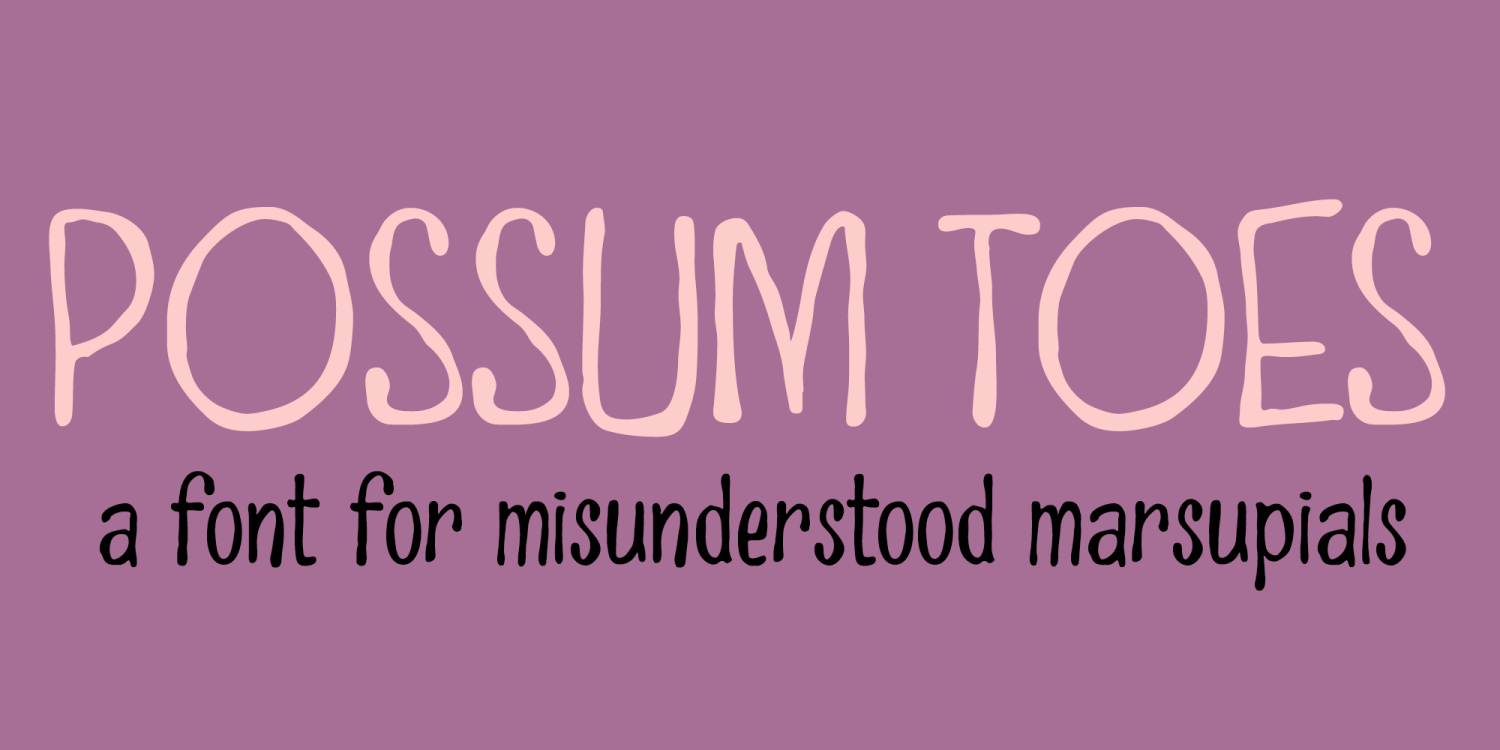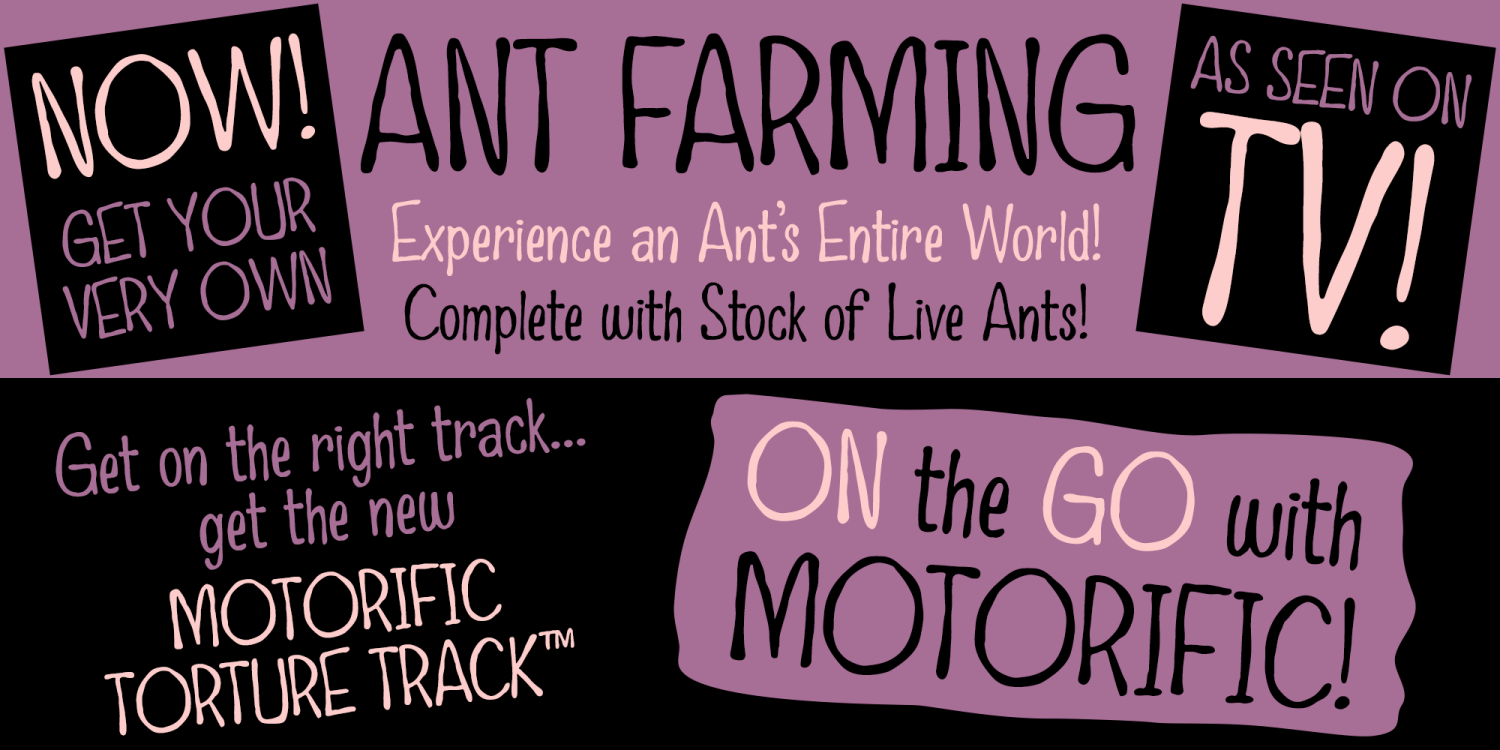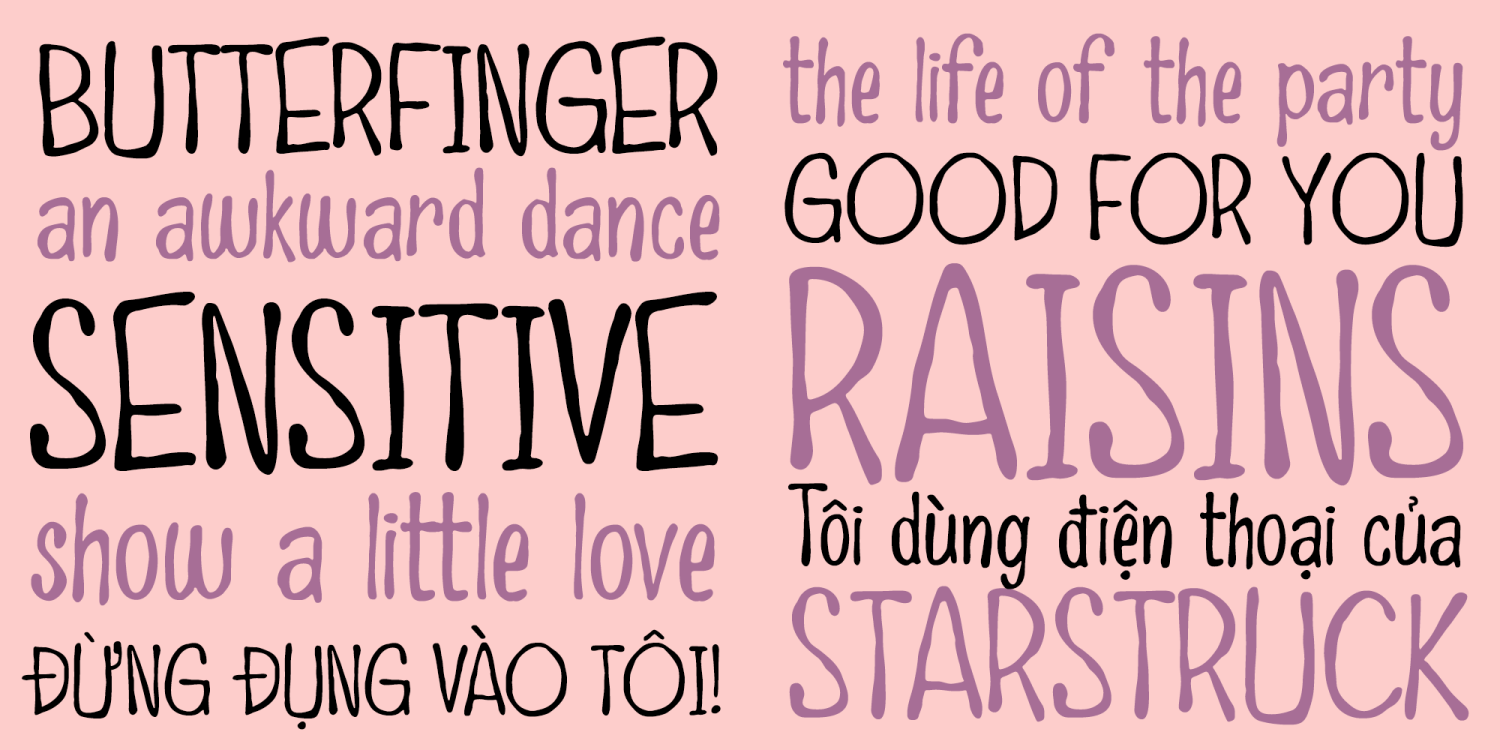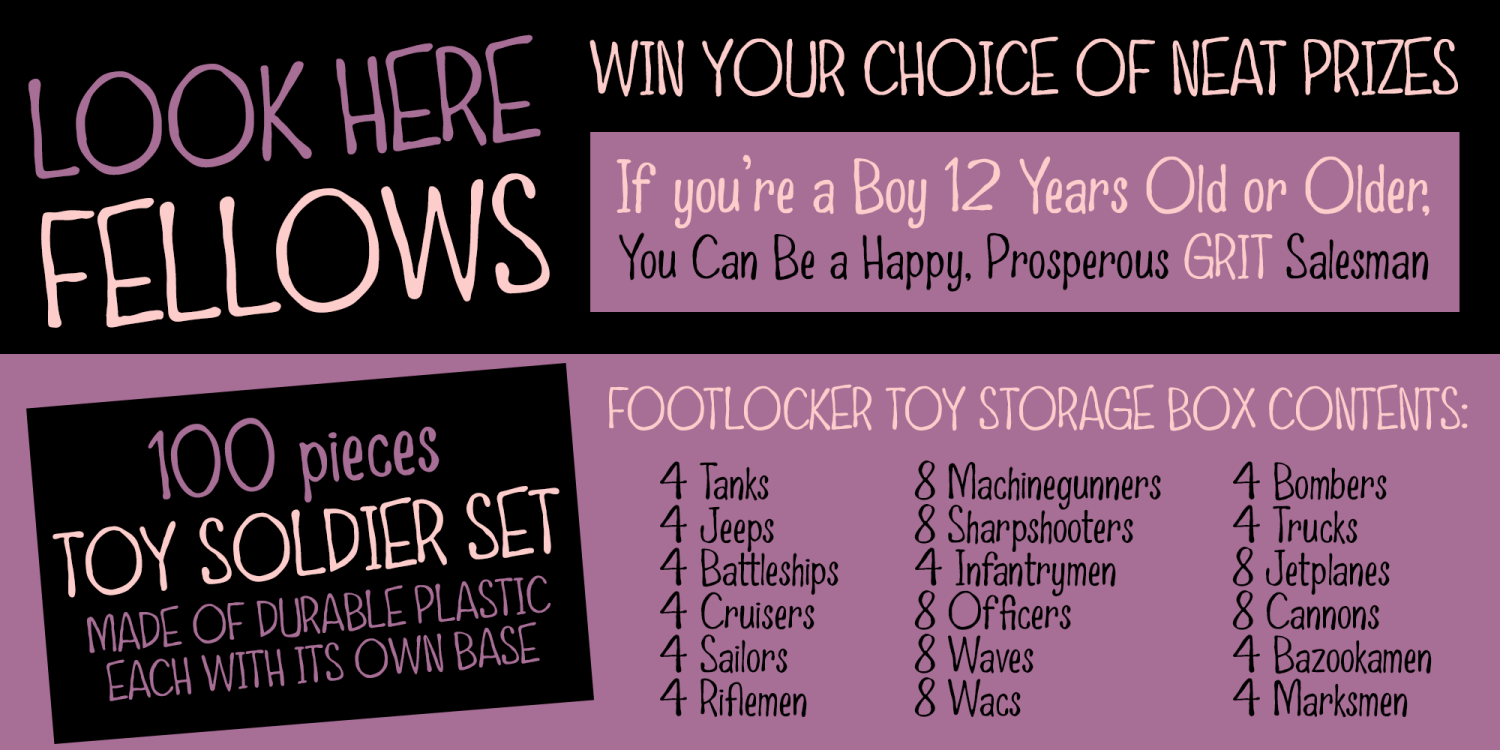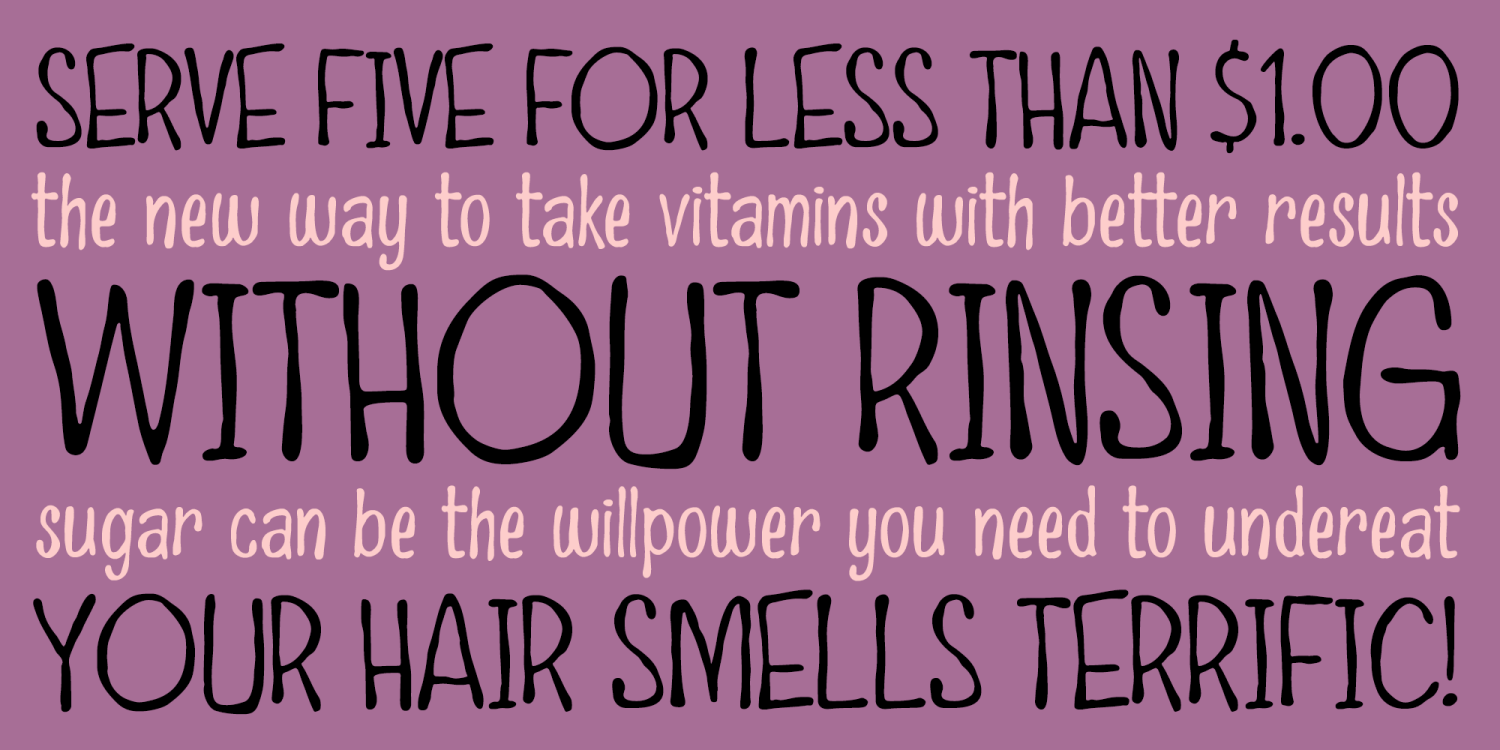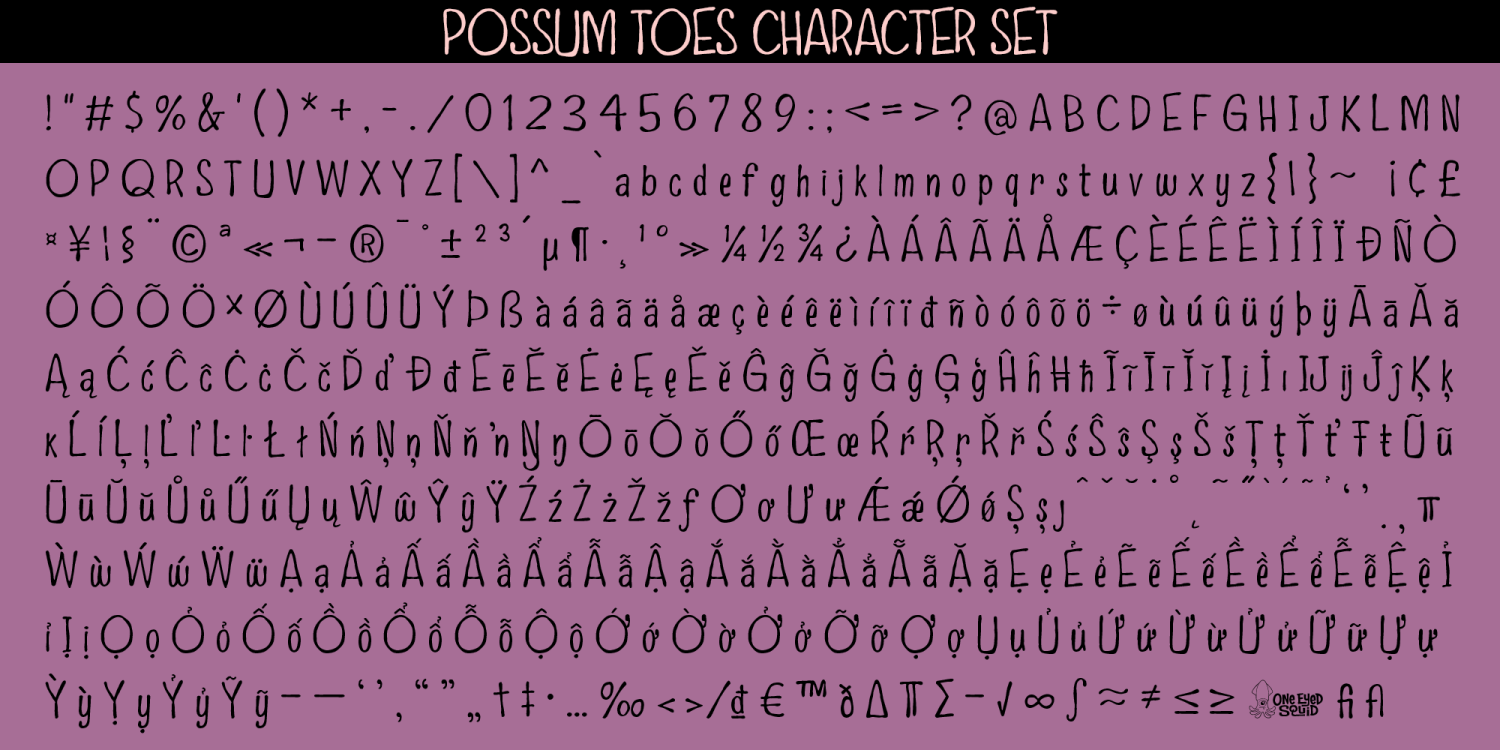
Possum Toes
Possum Toes is a soft, spindly display font with a delicate structure, playful energy, and an offbeat funky charm. Its light, quirky letterforms create a distinctive rhythm that feels both whimsical and approachable, making it a strong choice for designs that want personality without heaviness. Ideal for headlines, posters, branding, packaging, greeting cards, invitations, social media graphics, and other creative projects that benefit from a fun, unconventional typographic voice, Possum Toes brings a lively and memorable touch to any layout. Includes extended Latin language support, including Vietnamese.
Possum Toes includes 482 glyphs.